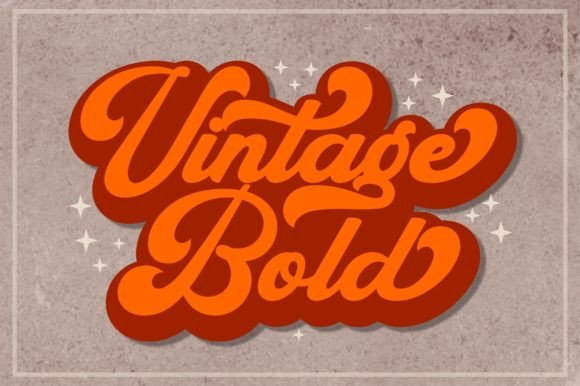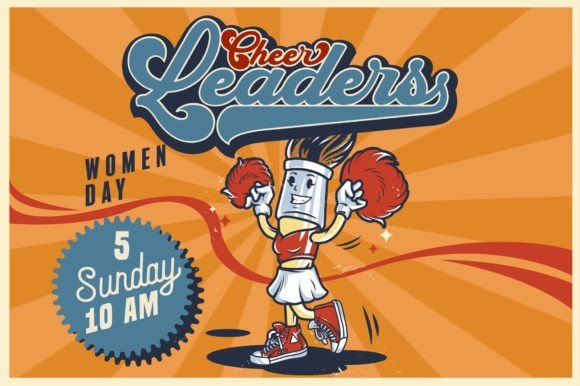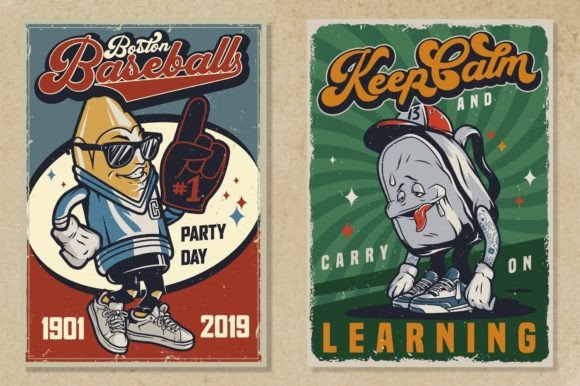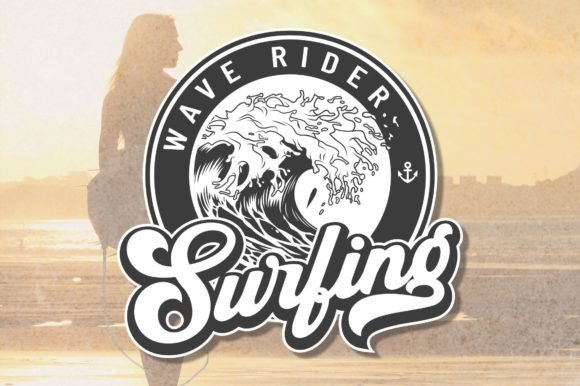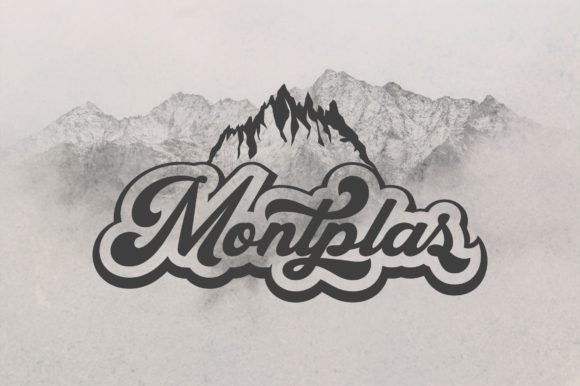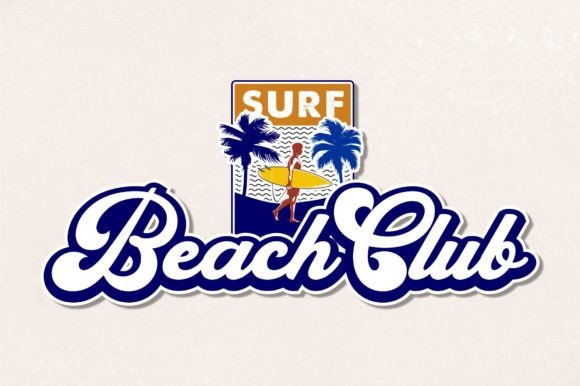
Introducing Chubiy Font: The Retro Bold Script Display Font for Your Creative Projects
Are you a designer or crafter looking for a font that adds a touch of loveliness to your creations? Look no further than Chubiy Font, a retro bold script display font that’s perfect for a variety of projects. In this article, we’ll explore the features and benefits of Chubiy Font, and show you how it can elevate your designs to the next level.
What is Chubiy Font?
Chubiy Font is a unique and eye-catching font that’s inspired by retro bold scripts. Its bold and playful design makes it perfect for use in cartoon-related designs, children’s games, and any other creation that requires a fun and lively touch. With its distinctive style, Chubiy Font is sure to grab attention and leave a lasting impression.
Key Features of Chubiy Font
- Retro Bold Script Design: Chubiy Font features a bold and playful design that’s reminiscent of classic retro scripts.
- Display Font: Chubiy Font is a display font, making it perfect for use in headlines, titles, and other prominent text elements.
- Cartoon-Related Designs: The font’s playful and fun design makes it ideal for use in cartoon-related designs, such as character logos, animations, and comics.
- Children’s Games: Chubiy Font is also perfect for use in children’s games, such as puzzle games, adventure games, and educational games.
- Lovely Touch: The font’s sweet and charming design adds a lovely touch to any creation, making it perfect for use in designs that require a personal and friendly feel.
Benefits of Using Chubiy Font
- Adds a Personal Touch: Chubiy Font adds a personal and friendly touch to your designs, making them more relatable and engaging.
- Grabs Attention: The font’s bold and playful design grabs attention and draws the viewer in, making it perfect for use in promotional materials and advertisements.
- Versatile: Chubiy Font is versatile and can be used in a variety of projects, from cartoon-related designs to children’s games and more.
- Easy to Read: Despite its bold design, Chubiy Font is easy to read, making it perfect for use in designs that require a clear and legible font.
In conclusion, Chubiy Font is a retro bold script display font that’s perfect for designers and crafters looking to add a touch of loveliness to their creations. With its bold and playful design, Chubiy Font is ideal for use in cartoon-related designs, children’s games, and any other creation that requires a fun and lively touch. So why not give Chubiy Font a try and see how it can elevate your designs to the next level?